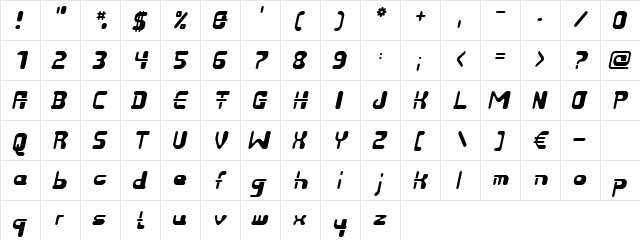
Kingdoom Size Regular
Design Context for Kingdoom Size Typeface
Kingdoom Size is a composed and adaptable typeface that performs quietly and consistently across a wide range of design contexts.